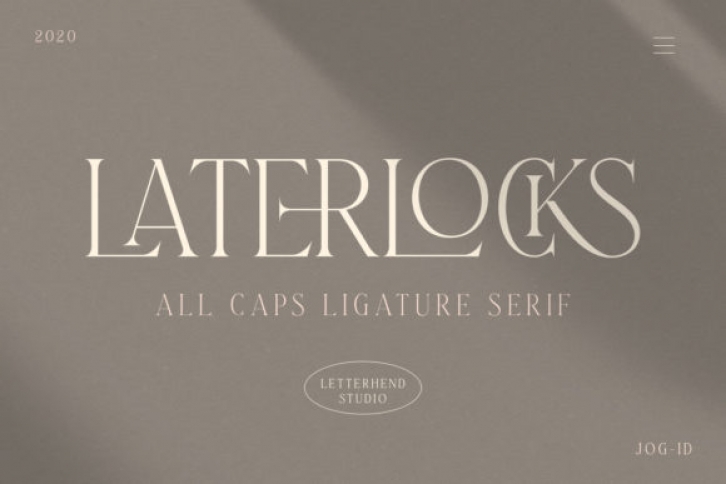
Laterlocks is a sophisticated serif font. It features an incredibly classic style, while still keeping a friendly feel. Laterlocks is the perfect font for making original and outstanding designs.